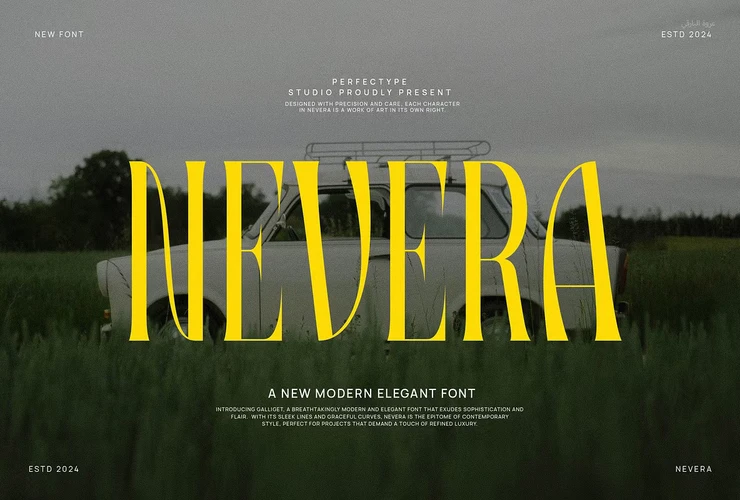
Nevera: The Epitome of Vintage Elegance in Serif Fonts
Nevera Vintage Serif Font is the ultimate choice for designers seeking to infuse their projects with a touch of sophistication and luxury. This elegant and classy serif font is meticulously crafted to meet the highest standards of design aesthetics, making it an ideal choice for branding and logo projects. With its refined style and versatile features, Nevera stands out as a font that can elevate any creative endeavor.
The Allure of Nevera
Nevera is a serif font designed with an emphasis on elegance and luxury. Its graceful lines and classic structure make it a perfect fit for a wide range of design applications. The font is equipped with a variety of beautiful and unique ligatures and alternate characters, allowing designers to create distinctive and personalized compositions. Whether you’re crafting a brand identity, designing a logo, or creating social media graphics, Nevera offers the versatility and sophistication needed to make your work shine.
Versatile Applications
Nevera’s high level of readability and stylish design make it suitable for numerous projects. Its timeless appeal makes it a perfect choice for:
Branding Projects: Create luxurious and memorable brand identities with Nevera’s classic and refined style.
Logo Design: Develop sophisticated logos that stand out with unique ligatures and alternates.
Social Media Posts: Enhance your social media presence with elegant and engaging visuals.
Advertisements: Capture attention with stylish and readable typography.
Labels & Product Packaging: Add a touch of class to your product presentations.
Photography Watermarks: Protect your work with a professional and elegant watermark.
Wedding Designs & Invitations: Set the tone for special occasions with beautiful and timeless typography.
Stationery: Design high-quality stationery that reflects your brand’s elegance.
Key Features
Elegant & Classy Design: Perfectly crafted to exude sophistication and luxury.
Beautiful Ligatures & Alternates: Offers a variety of options to customize your designs.
High Readability: Ensures clarity and legibility across different mediums.
Versatile Use: Ideal for a wide range of design projects, from branding to wedding invitations.